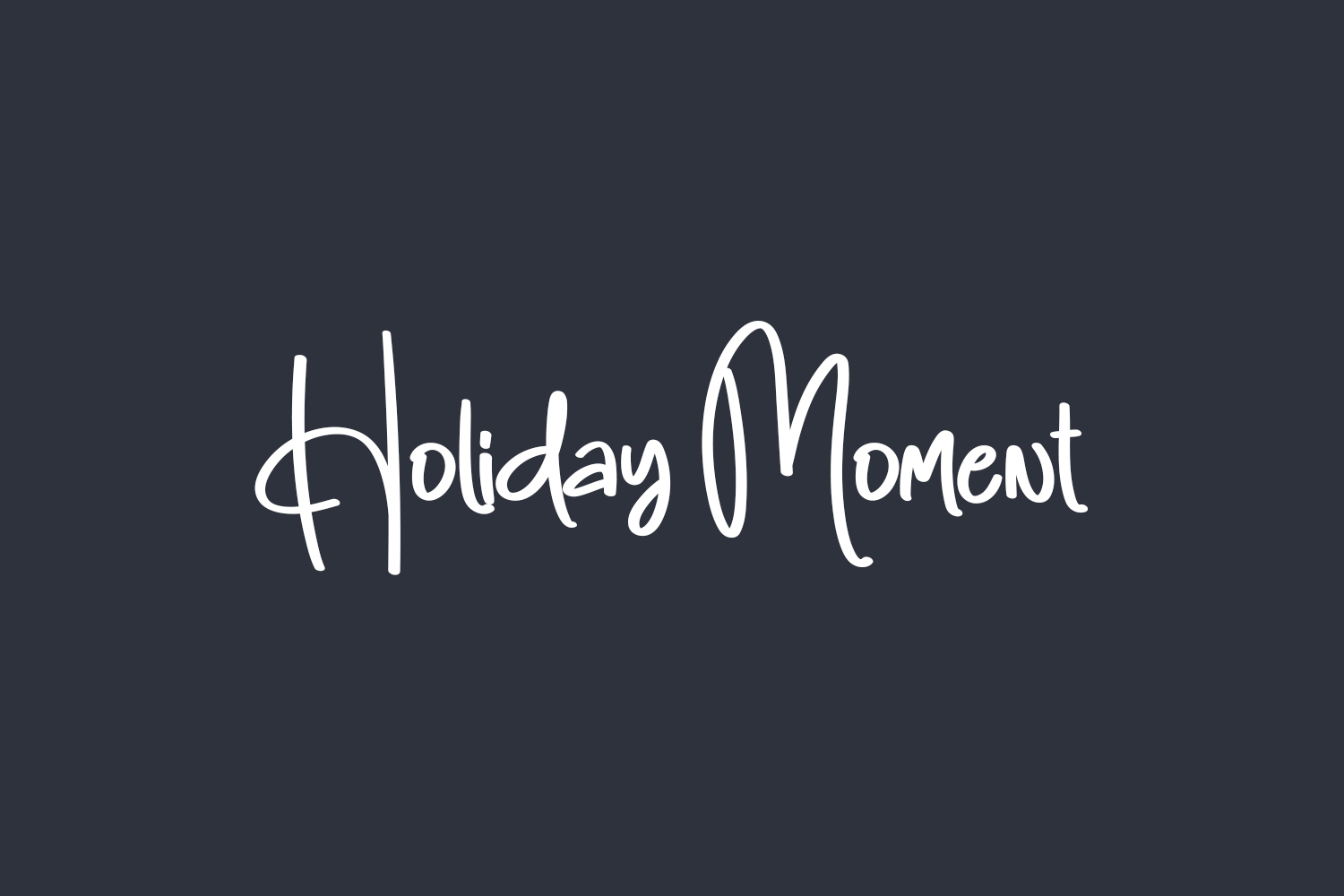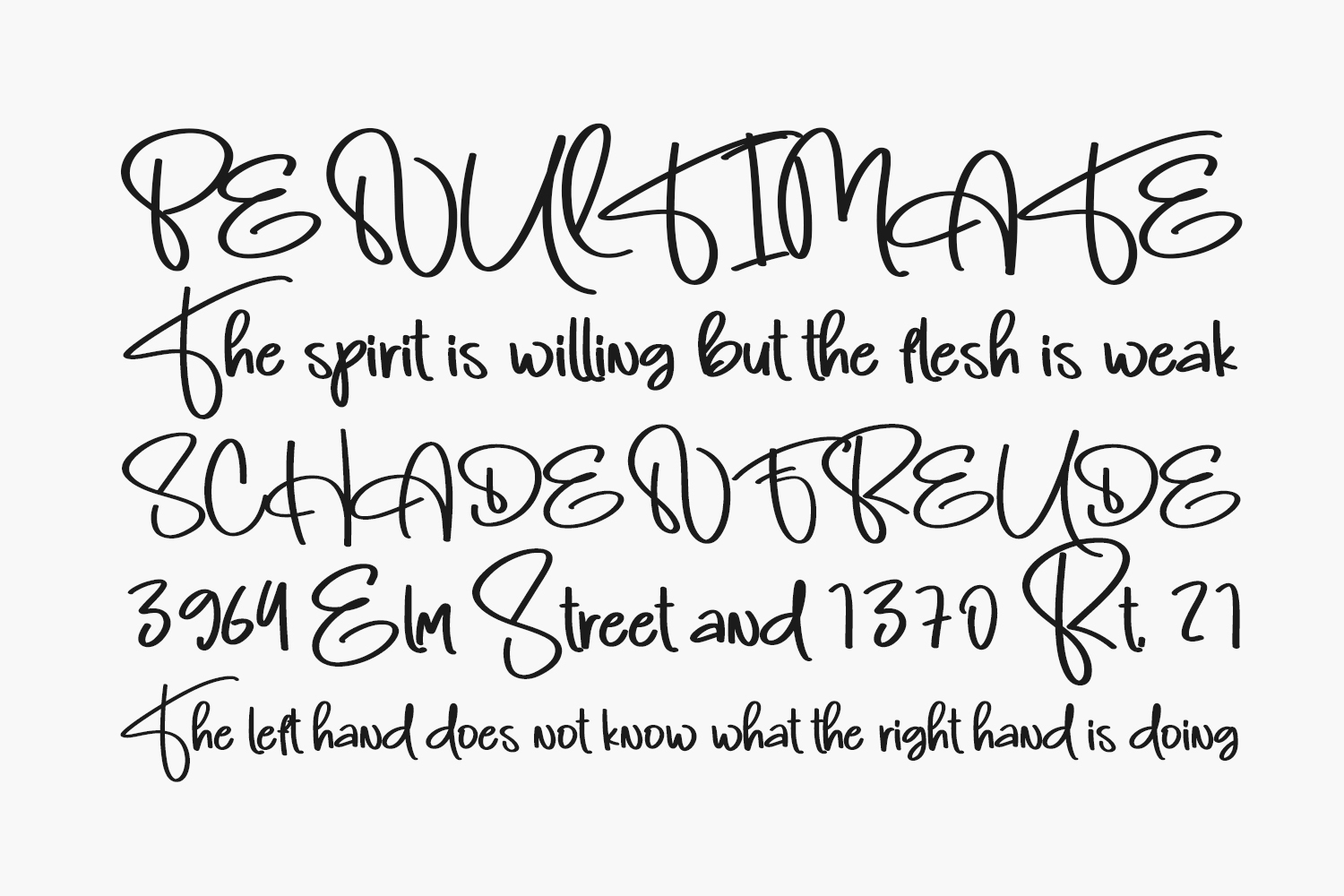
Welcome to the world of Holiday Moment Free Font – a timeless and elegant handwritten script, crafted in a delightful and carefree style. This versatile font is perfect for various applications, including logotypes, headlines, corporate and brand identities, apparel, posters, music and movie projects, games, magazines, books, comics, cartoons, YouTube, Instagram, websites, and any other creative design ventures you embark on. Embrace the charm of Holiday Moment as it effortlessly enhances your designs with its simple yet captivating essence. Holiday Moment Free Font is free for personal use only. Please purchase the full version for commercial use.